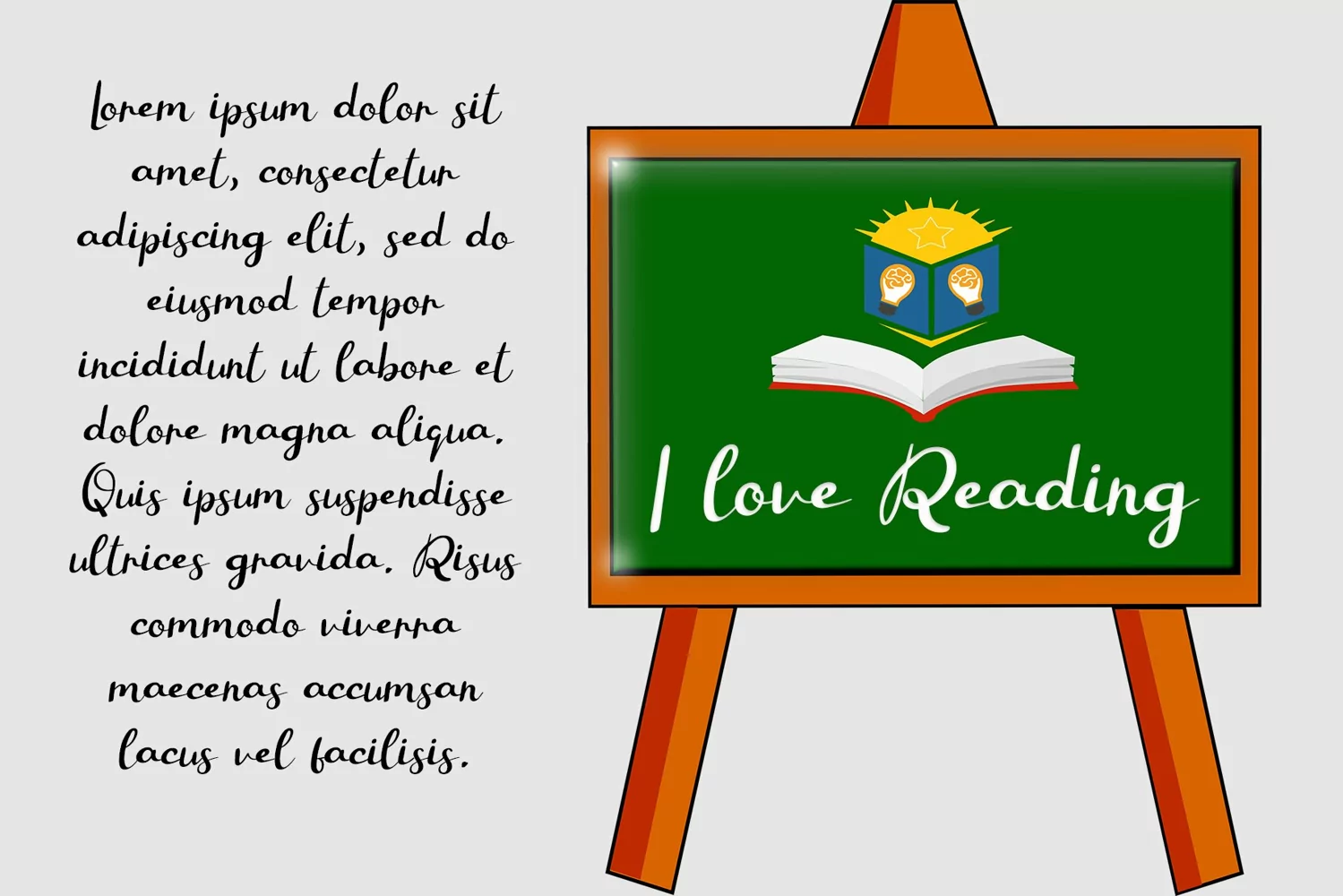
Rainbow Diamonds
Introducing, this is our newest product, we call this product Rainbow Diamonds,
It looks amazing with sweet touches and beautiful curves in each letter. Rainbow Diamonds fonts are perfect for: wedding invitations, fashion magazines, logos, signatures, photography, watermarks, wall displays, social media,